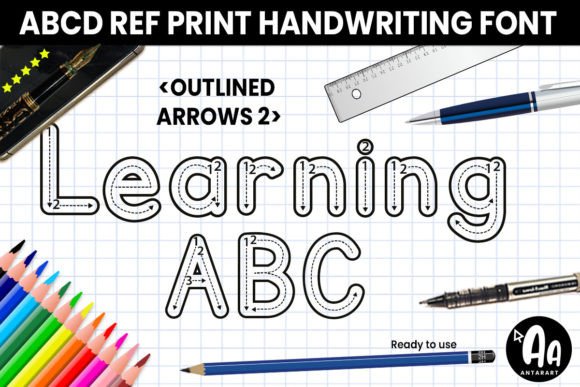
The ABCD Ref Outlined Arrows2 Font: A Fun Learning Companion for Designers and Educators
I’ll never forget the time I was working on a project to create engaging worksheets for a children’s educational program. I was on a tight deadline and struggling to find the perfect font that would make the alphabet fun and interactive. That’s when I stumbled upon the ABCD Ref Outlined Arrows2 font, and it changed the game for me! In this article, I’ll share my experience with this fantastic font, its features, and how to make the most of it.
What is ABCD Ref Outlined Arrows2?
The ABCD Ref Outlined Arrows2 font is part of the ABCD Ref font family, designed based on the D’Nealian Method US school. This outline display font is a great learning resource for those who want to learn or teach the print alphabet enjoyably and interactively. With its unique outlined and arrowed design, it’s perfect for creating thousands of worksheets, activity sheets, and educational materials.
- ✨ Unique Design: The outlined and arrowed design makes it perfect for creating interactive and engaging educational materials.
- ✅ Ease of Use: The font is easy to use and works well with various design software.
- 📚 Learning Resource: It’s an excellent resource for teachers, parents, and educators who want to make learning fun.
🤔 Another thing to consider is that the font might not work well with very small font sizes, as the outlined design can become too thin and hard to read.
The ABCD Ref Outlined Arrows2 font was designed with the D’Nealian Method US school in mind. This method focuses on making handwriting and reading fun and interactive. The font’s unique design is inspired by the need for a engaging and educational tool for teachers and students.
Q: Is ABCD Ref Outlined Arrows2 suitable for young children?
A: Yes, the font is designed to be fun and interactive, making it perfect for young children learning the alphabet.